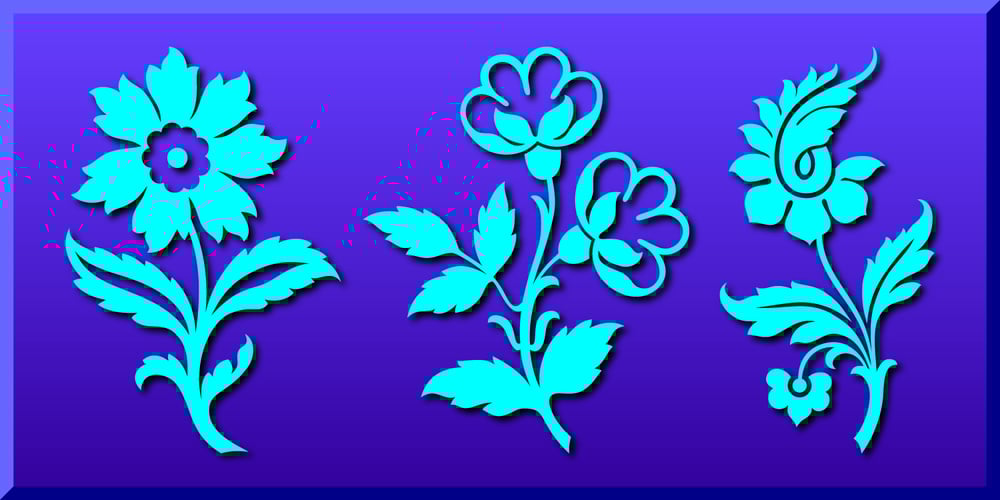
Fancy Flowers Font Family was designed by Gerald Gallo and published by Gerald Gallo. Fancy Flowers contains 1 styles and family package options. Fancy Flowers was inspired by textile designs from the nineteenth century. There is an assortment of 47 flowers located under the character set keys.